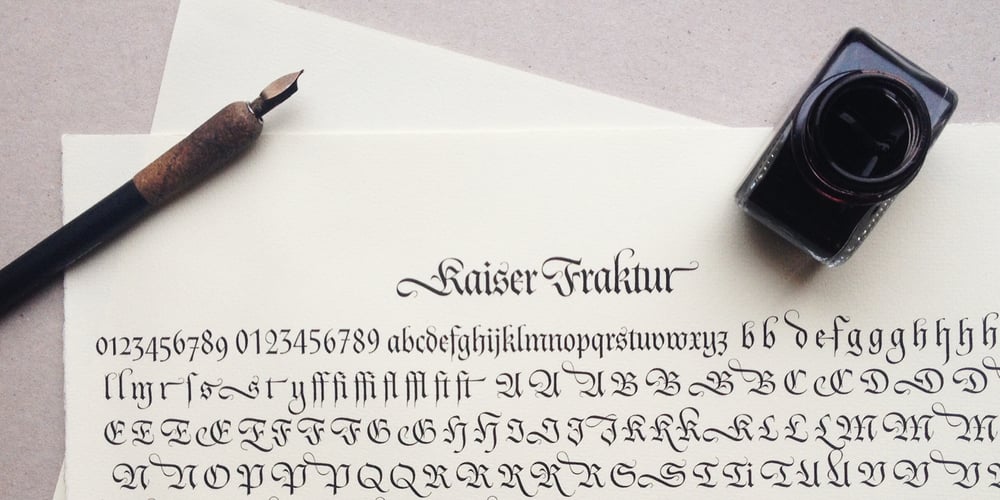
Kaiser Fraktur Font Family was designed by Bertram Kaiser and published by KaiserType. Kaiser Fraktur contains 1 styles and family package options. Kaiser Fraktur is a very calligraphic multilingual typeface. Its forms were originally written by hand with a broadnib and ink on paper. They are inspired by original manuscripts of Johann Neudörffer and Leonhard Wagner. The font derives its ornamental strength from a big variety of alternate letters for certain purposes. There are initials, swash letters and final letters, which can be found in the glyphs menu (ADOBE-Apps) or accessed via open-type features (init, salt, swsh, fina). This gives you the possibility to create individual text layouts or headlines, which will stand out.